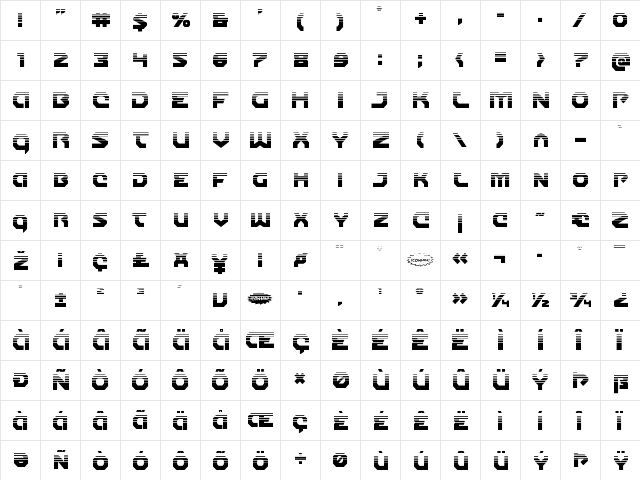
Gunner Storm Halftone Regular
Design Context for Gunner Storm Halftone Typeface
Gunner Storm Halftone is a composed and adaptable typeface that performs quietly and consistently across a wide range of design contexts.